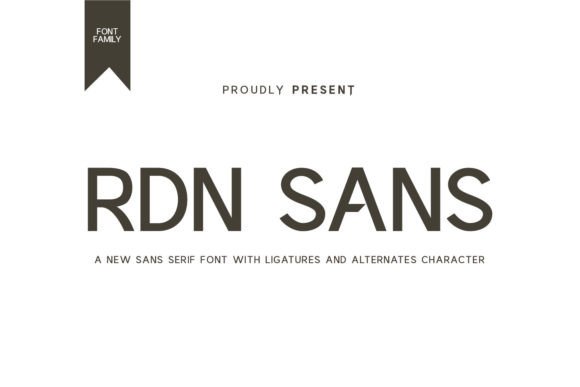
RDN Sans Font Download- Product sans Font : In modern design, clarity and personality often feel like opposite goals. Yet RDN Sans Font bridges that gap perfectly — offering a clean, contemporary sans serif design enriched with creative touches like ligatures and alternate characters. Whether you’re designing elegant wedding invitations, bold magazine covers, or dynamic presentations, RDN Sans is built to elevate your work with versatility and style.
Let’s explore why RDN Sans has quickly become a favorite for designers worldwide, its best uses, creative design ideas, free alternatives, download options, and answers to the most common questions.
What is RDN Sans Font?
RDN Sans is a modern sans serif typeface designed for flexibility and creative expression. Its smooth, balanced letterforms create a professional look, while thoughtfully crafted ligatures and alternates add unique character.
Key features:
• Clean sans serif structure, perfect for modern design
• Stylish ligatures for visual interest
• Alternate characters for variety and personalization
• Highly legible across print and digital formats
RDN Sans is more than just a font; it’s a toolkit for creating professional, polished, and original designs.
Why Designers Love RDN Sans Font
🖋 Balance of Simplicity & Character:
While RDN Sans maintains the clarity of a classic sans serif, its ligatures and alternates bring creative flair.
🛠 Versatile by Design:
Great for headlines, body text, logos, or any creative layout.
📐 Modern Aesthetic:
Perfectly suits contemporary brands, minimal layouts, and digital content.
🎨 Easy Customization:
Alternate characters help you craft unique titles or branding without extra graphic work.
🖥 Digital & Print Friendly:
Its clean lines and proportional design ensure it looks sharp on screens and in print.
Best Uses for RDN Sans Font
With its combination of simplicity and style, RDN Sans is ideal for:
Business Presentations:
Polished slides with clear headings and text.
Branding & Logos:
Modern brands looking for clean typography with character.
Magazines & Editorial Design:
Flexible enough for cover titles, section headers, and feature pull quotes.
Event Invitations & Stationery:
Especially wedding invitations, save‑the‑date cards, and RSVP designs.
Web Design & Apps:
Clear readability on websites, menus, and app interfaces.
Advertising & Banners:
Draw attention with clean yet visually appealing typography.
Its legibility and subtle creative touches make it adaptable for professional and creative projects alike.
Design Tips for Using RDN Sans Font
💡 Pair Thoughtfully:
Use RDN Sans for titles and pair it with a serif font (like Playfair Display) for body text to create contrast.
🎨 Explore Ligatures & Alternates:
These extra features help add custom flair to logos and headlines.
📏 Mind Your Spacing:
Slight adjustments to tracking or kerning can dramatically improve legibility in large titles.
Combine Cases:
Use uppercase for bold, modern looks; switch to lowercase for friendly, minimalist vibes.
🖼 Use Color Strategically:
Bright colors make headlines pop; muted tones give a sophisticated feel.
Creative Design Ideas with RDN Sans Font
📊 Business Presentation:
Modern slide titles in RDN Sans paired with minimalist charts.
💌 Wedding Invitation:
Couple’s names in alternate uppercase characters, paired with classic serif details.
📸 Photography Logo:
Studio name in all caps with creative ligatures.
📱 App Interface:
Menu text and buttons styled with clean RDN Sans for clarity.
🛍 Product Packaging:
Definitely — it was designed to look clear and professional on slides and screens.
Final Thoughts: Elevate Your Work with RDN Sans Font
RDN Sans Font offers the perfect blend of modern simplicity and creative detail. Whether you’re designing a sleek brand identity, a stylish magazine cover, or a professional presentation, it helps your work look clean, confident, and distinctly yours.